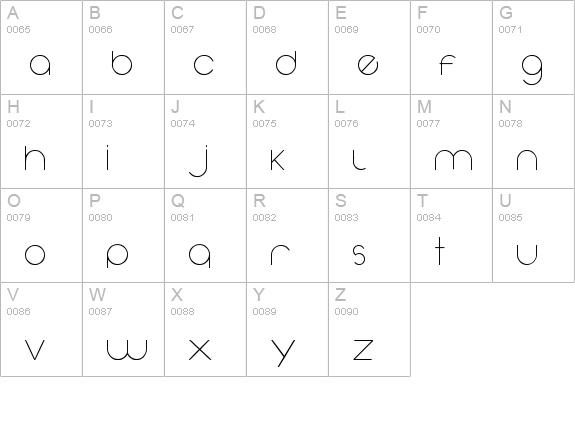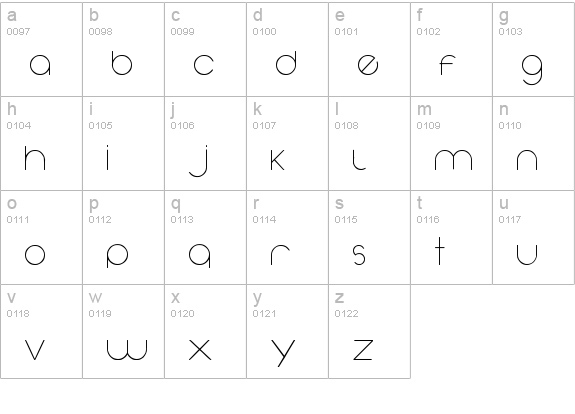
Vaguely Fatal Font Details
Vaguely Fatal font is a captivating and enigmatic typeface that exudes a mysterious allure. With its intricate letterforms and subtle curves, this font adds an air of intrigue to any design project. It strikes the perfect balance between elegance and darkness, making it ideal for various creative endeavors. The Vaguely Fatal font is meticulously crafted, with each character thoughtfully designed to captivate and engage the viewer. Its unique and distinctive style sets it apart from conventional fonts, making it a perfect choice for those seeking to make a bold statement. Whether you're working on a poster, logo, or website, Vaguely Fatal font is sure to leave a lasting impression. Its versatility allows it to be used in a variety of contexts, from vintage-inspired designs to modern and sleek aesthetics. What makes Vaguely Fatal font even more enticing is that it is available for free download at FontsMarket.com. This means that you can easily access and use this captivating font without any cost. With just a few clicks, you can enhance your design projects and unleash your creativity with this remarkable typeface. So, why settle for ordinary fonts when you can embrace the allure and intrigue of Vaguely Fatal font? Download it for free at FontsMarket.com and let your designs leave a lasting impression on your audience.